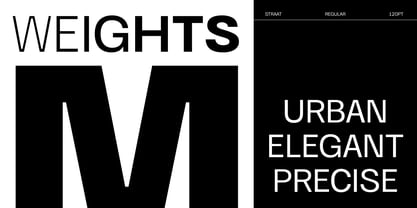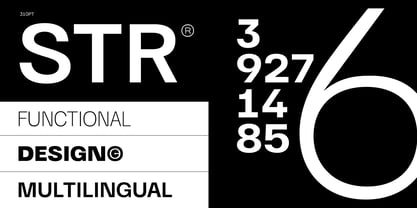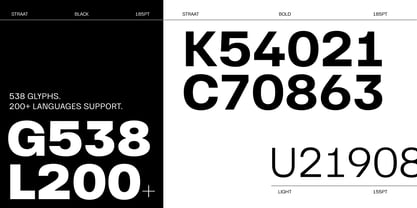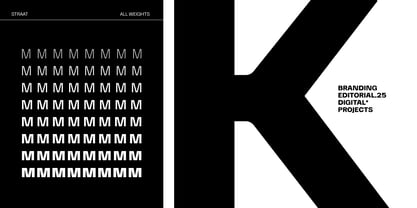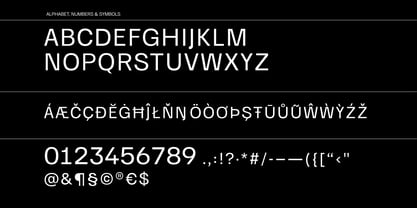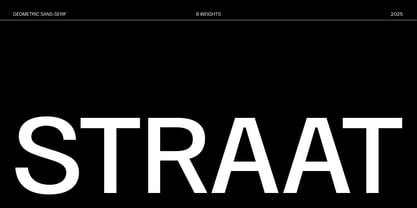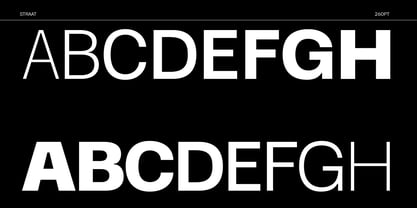
Straat
by Rui Nogueira
The Straat Font Family was designed by Rui Nogueira and published by Rui Nogueira. Straat contains 8 styles and family package options. More about this family
Straat is a condensed geometric all-caps sans-serif with strong personality, contemporary attitude and a naturally bold character. It combines subtle contrast, narrow proportions and modern details that give it a current Scandinavian/Portuguese touch. Straat comes with eight weights ranging from a delicate ExtraLight (ideal for elegant large-scale typography and subtle overlays) to a powerful Black (perfect for maximum impact in posters, billboards and bold statements). This wide weight range delivers flexibility for hierarchy, branding systems, editorial design and UI projects. Perfect for impactful headlines, urban branding, logos, posters, fashion editorials and minimalist design projects that demand presence and elegance.
Designers: Rui Nogueira
Foundry: Rui Nogueira